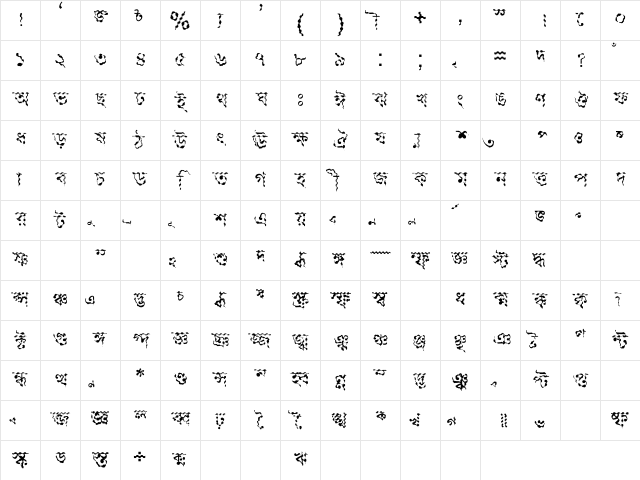
Progoty Wave Regular Free Font
Progoty Wave Regular
Design Context for Progoty Wave
Progoty Wave is a composed and adaptable typeface that performs quietly and consistently across a wide range of design contexts.